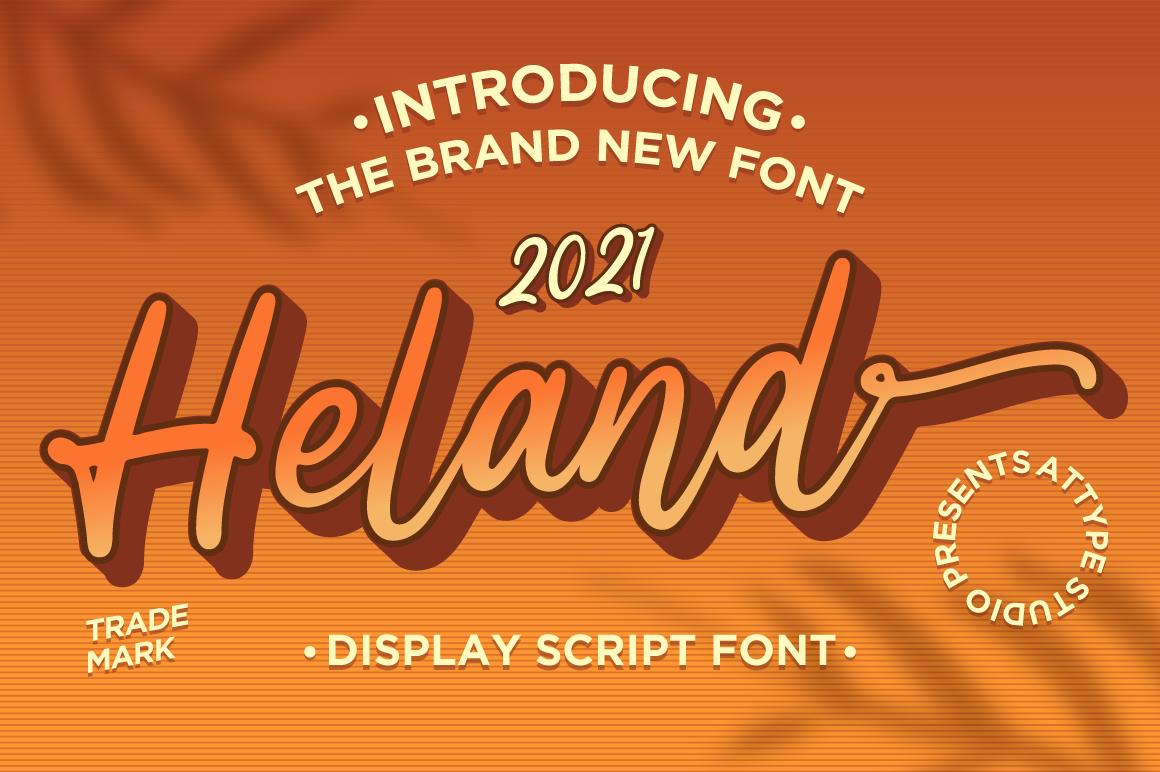
Heland - Display Script Font
Introducing Heland - Inspired by typeface on 70s era, Heland has the vintage font & retro font with two style regular & extruded.
Two style Font: regular & extruded.
Heland is perfect for children product, branding, logo, invitation, stationery, product packaging, merchandise, monogram, blog design, game titles, cute style design, Book/Cover Title and more.
- Beginning & Ending swash